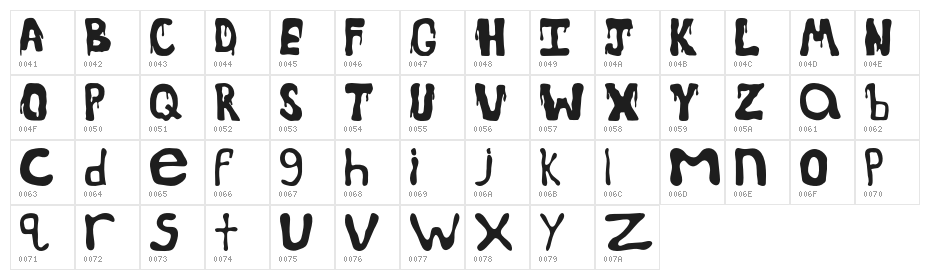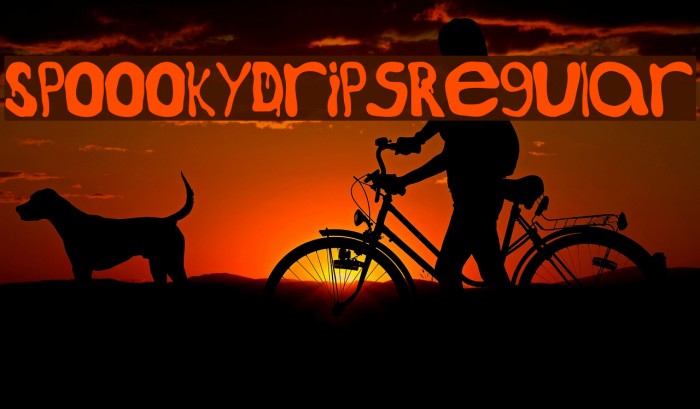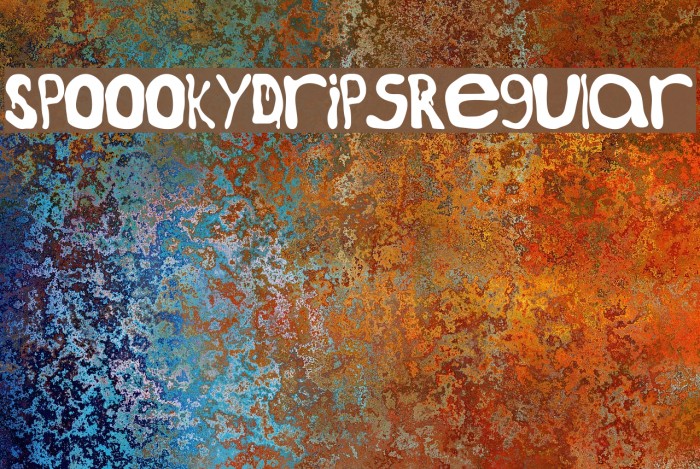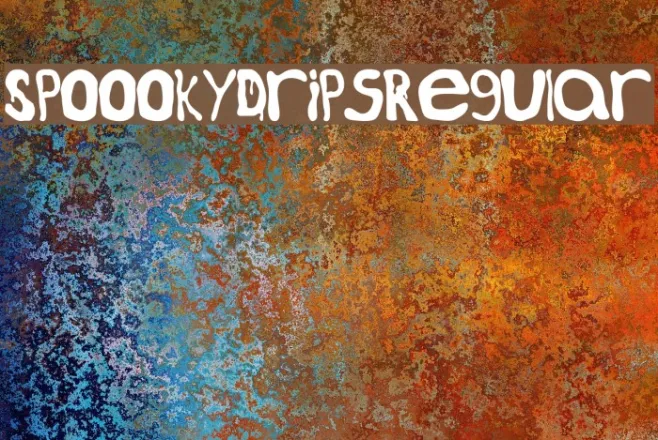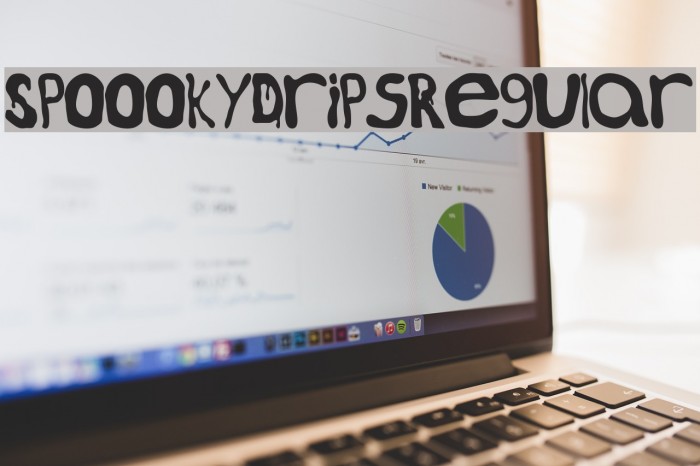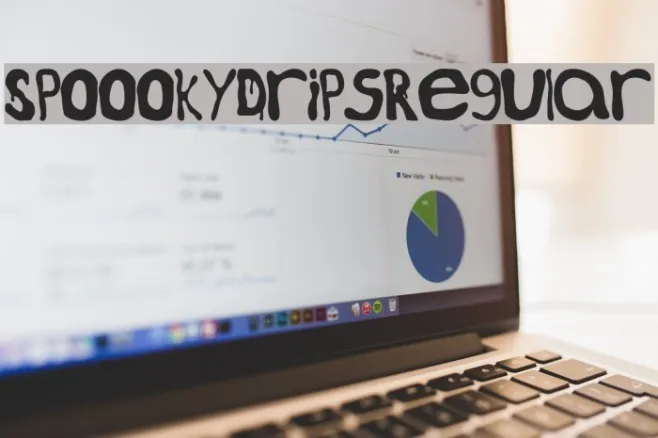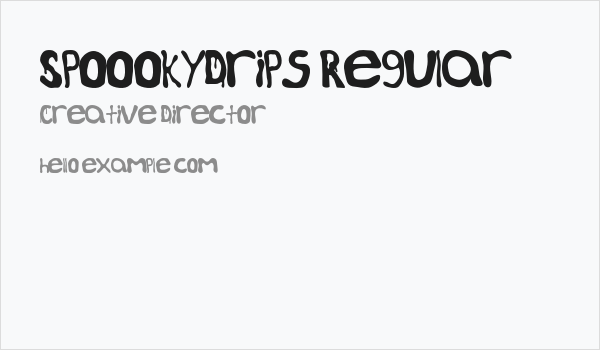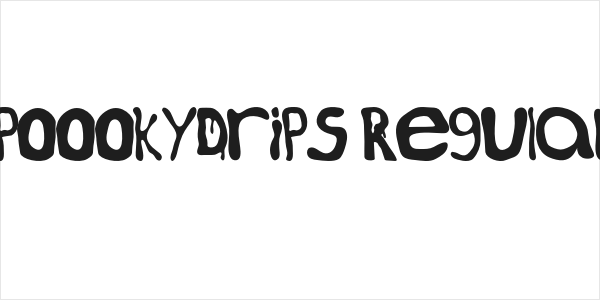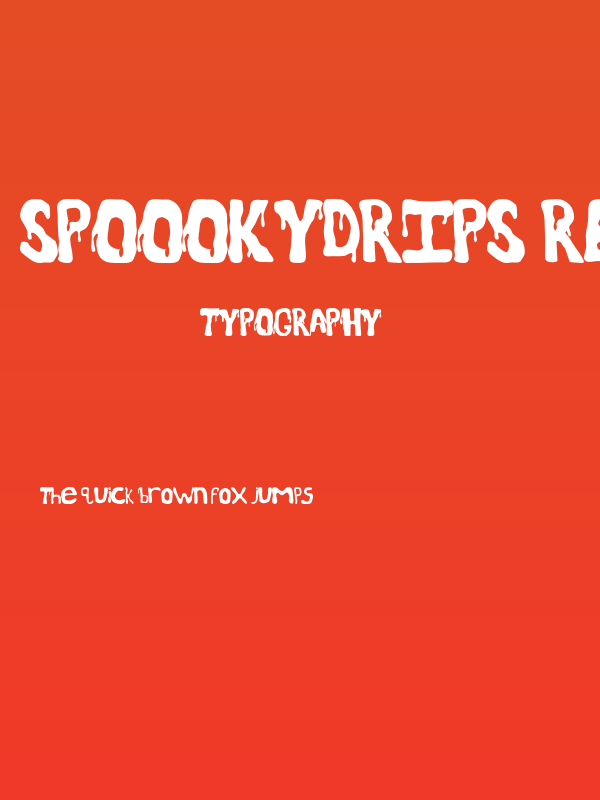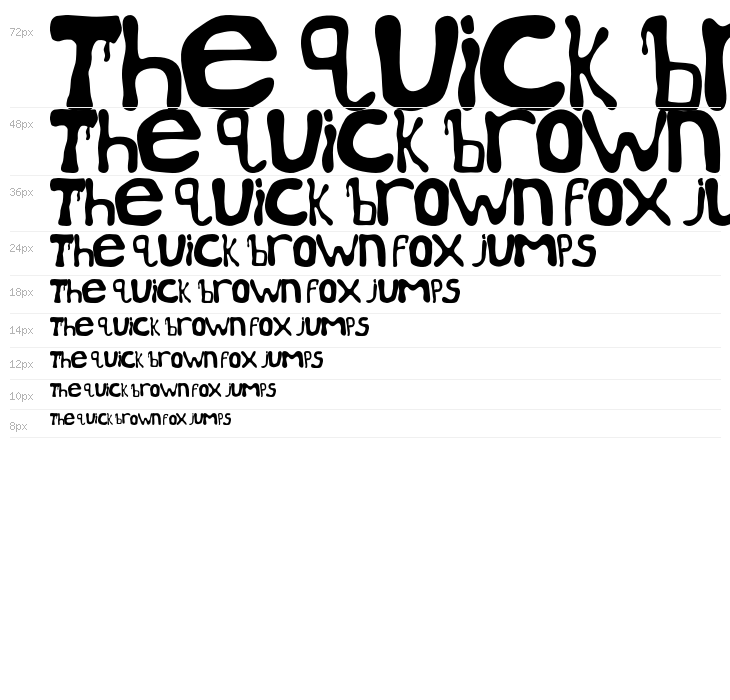
SpoookyDrips-Regular Font
SpoookyDrips-Regular Description
This font features a playful and eerie design, characterized by its dripping, irregular shapes that evoke a sense of mystery and spookiness. The uppercase and lowercase letters have a fluid, organic appearance, with uneven edges that mimic the look of melting or dripping liquid. The numbers and special characters maintain this theme, adding a cohesive and thematic touch to the overall style. The font's unique design makes it ideal for projects that require a touch of the macabre or whimsical, such as Halloween-themed graphics, horror movie posters, or haunted house invitations.
| Proposed Projects | Ideal for Halloween graphics, horror movie posters, and haunted house invitations. |